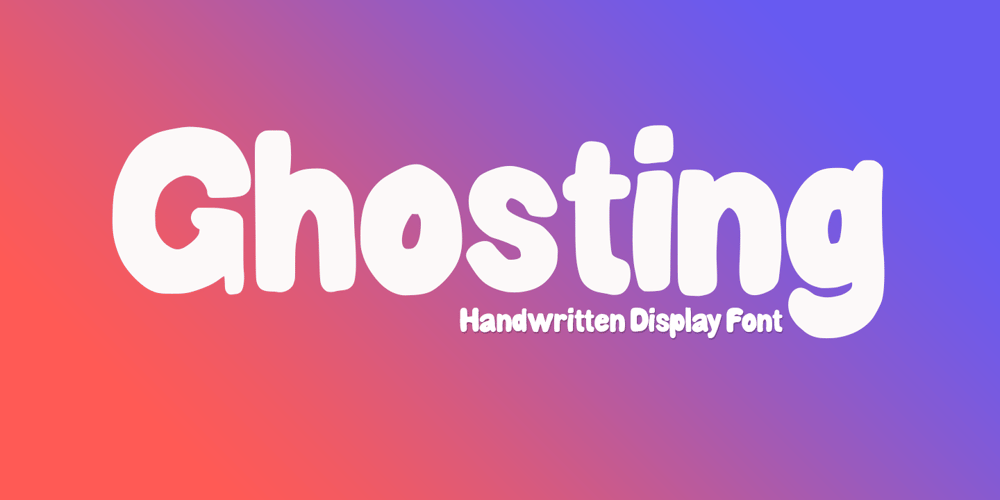
Ghosting Display Font Family was designed by Andri Kurniawan and published by Struggle Studio. Ghosting Display contains 1 styles and family package options. Ghosting – is a fun and charming display font. It embodies playfulness and originality and is the perfect choice for children’s or parents’ activities and school projects, clothing, food posters and birthday cards.